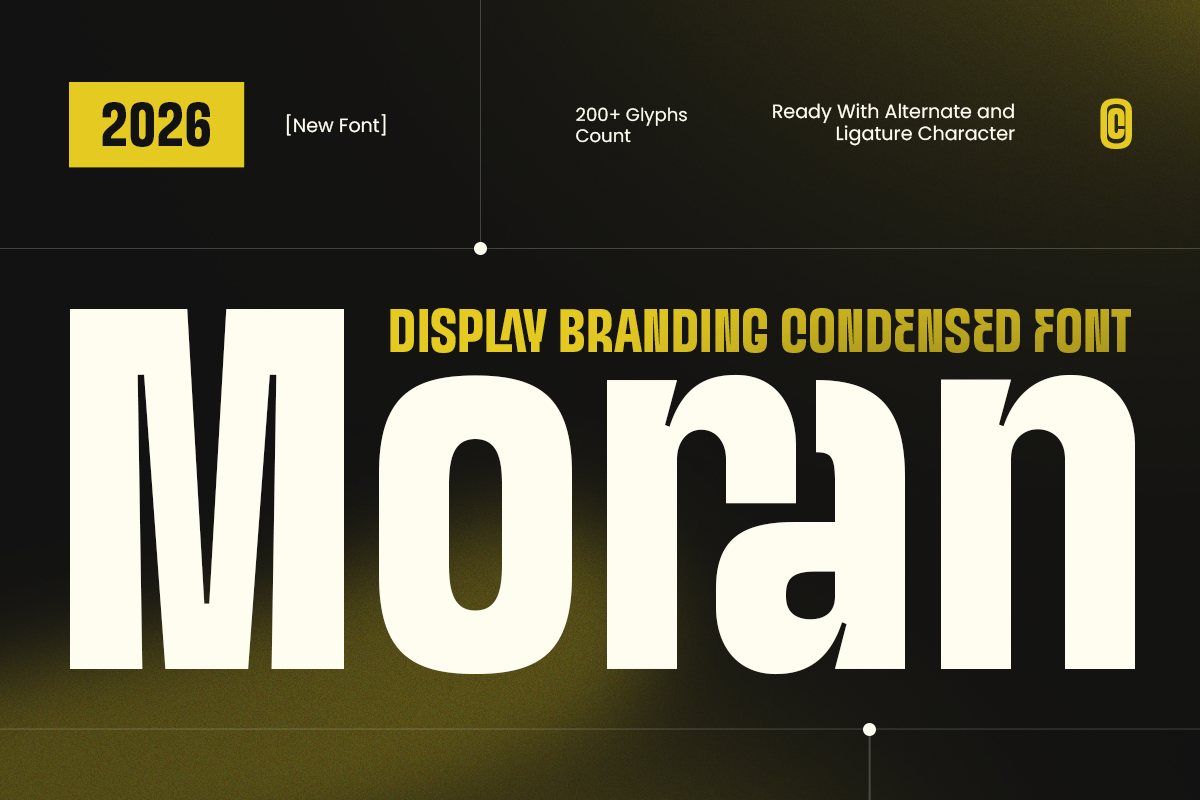
Moran
-Display Branding Condensed Font
Moran – Display Branding Condensed Font
Moran is a display branding condensed font designed with a strong visual presence and modern character. Featuring tall condensed proportions and bold letterforms, Moran creates a confident and impactful style perfect for brands that need a memorable identity. Its structured design brings a balance of strength, clarity, and contemporary appeal.
Built for high-impact visuals, Moran is ideal for logos, brand identity, posters, packaging, headlines, signage, editorial layouts, and social media graphics. The condensed style allows designers to create powerful compositions while maintaining excellent readability across both digital and print applications.
With its versatile display personality, Moran works beautifully for fashion brands, creative agencies, sports projects, lifestyle products, and modern businesses seeking a bold typographic statement. This font delivers a professional and distinctive look for projects that demand attention.
Moran – Display Branding Condensed Font Features
• Bold condensed display letterforms with strong visual impact
• Designed for modern branding and logo creation
• Perfect for posters, headlines, packaging, and signage
• Works beautifully for digital and print projects
• Clean structure with excellent readability
• OpenType features for creative flexibility
Make your visual identity unforgettable with Moran – a powerful condensed display font built for bold branding and modern creativity. ✨